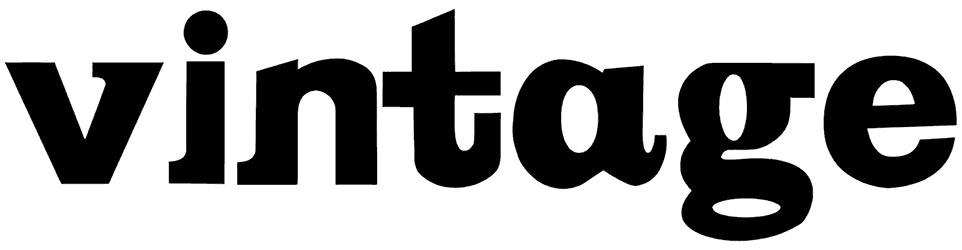
Vintage Font
The significant thing that matters about nicely portraying the formal writing project is picking the right agreeable font that matches all tastes, and here, Vintage, through its classic official-crafty outward, can do that.
This retro font has a reliable face that will give you a more trustworthy and honorable sense to create various designs. Let’s apply this standard masterpiece to posters, headers, documents, magazines, and much more. Try it out and take delight!